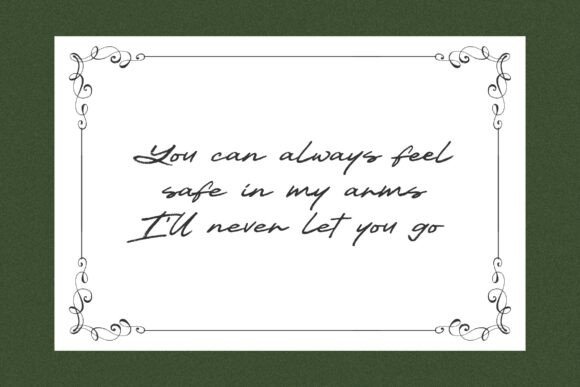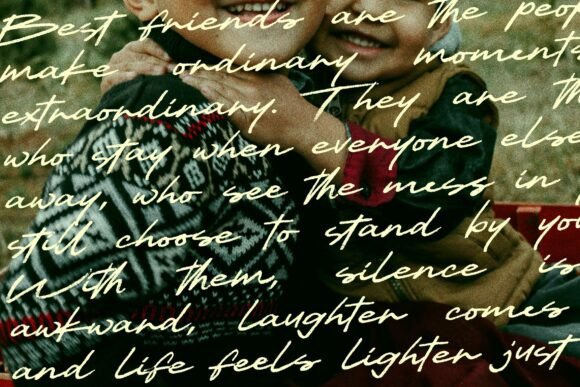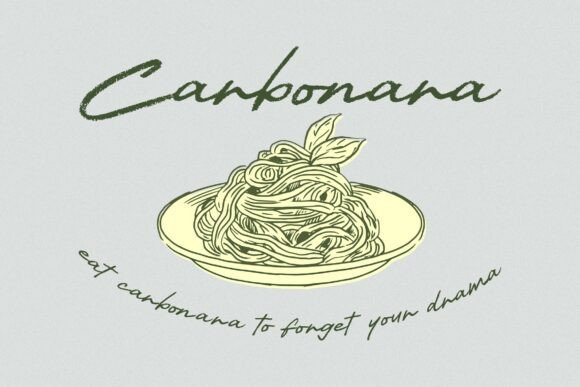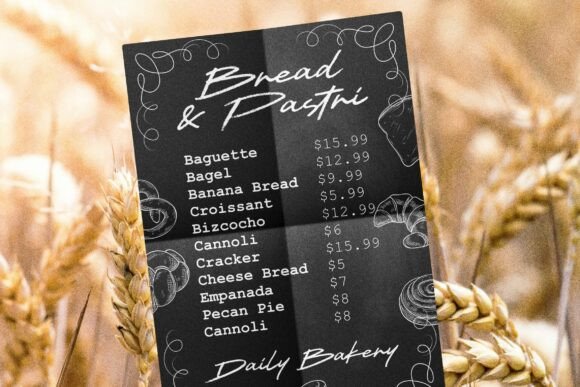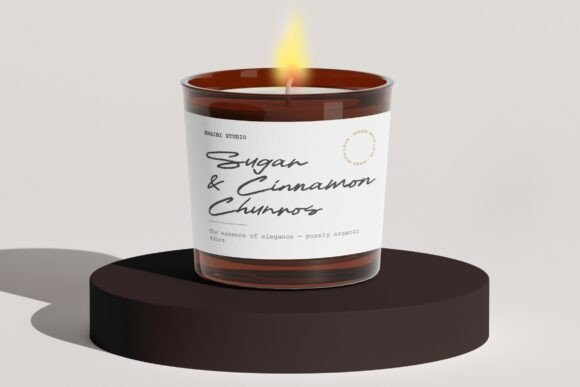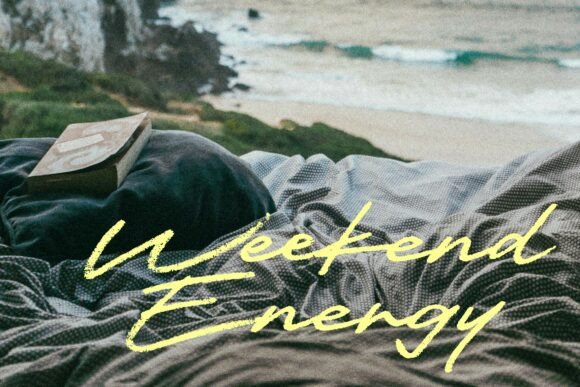
Introduction to Kajompi Font
Have you ever been working on a creative project, pouring your heart and soul into every detail, and suddenly, the perfect font appears? For designers, this moment is pure magic. It’s when all the elements come together, and the design truly feels alive. That’s exactly what the Kajompi Font does – it brings warmth and authenticity to your projects, making them feel truly special.
As a design resource, the Kajompi Font is a high-quality addition to any creative project. Its organic, handwritten style is perfect for branding, invitations, and packaging, among many other applications. With its transparent background, you can easily combine it with other design elements to create a unique look that’s all your own.
Key Features of Kajompi Font
- Unique, hand-drawn style with a transparent background for versatile use
- Supports a wide range of languages, making it a valuable design resource for global projects
- Includes 300+ glyphs and characters, ensuring comprehensive coverage for creative needs
- Perfect for use in graphic design, digital art, and other creative endeavors
Honest Review: Kajompi Font
I recently had the chance to work with the Kajompi Font, and I must say it’s been a game-changer for my creative projects. The high quality of this font is truly impressive, making it a valuable addition to my design resource library.
One of the standout features of the Kajompi Font is its versatility. It’s available for free download, which is a huge bonus for designers on a budget. The transparent background option also makes it easy to incorporate into various design elements.
Here are some of the things that work well with the Kajompi Font:
- ✨ High-quality design with a unique aesthetic
- ✨ Transparent background for easy integration into designs
- ⚠️ Limited font weight options, which can be restrictive for certain design projects
- ⚠️ Some users may find the font too stylized, which can be a drawback for more straightforward design projects
Overall, I’m impressed with the Kajompi Font and would highly recommend it to designers working on creative projects. With its high-quality design and versatile features, it’s a valuable addition to any design resource library.
Tips for Getting the Most Out of Kajompi Font
To get the most out of the Kajompi Font, experiment with different font sizes, styles, and combinations. Use the font in conjunction with other design elements, such as images and shapes, to create visually appealing designs. The Kajompi Font is a high-quality design resource that can elevate your creative project and make it stand out.
The Kajompi Font is commonly used for presentations, social media graphics, logos, and brochures. Its transparent background and high-quality design make it perfect for a wide range of creative projects, from business cards to infographics.